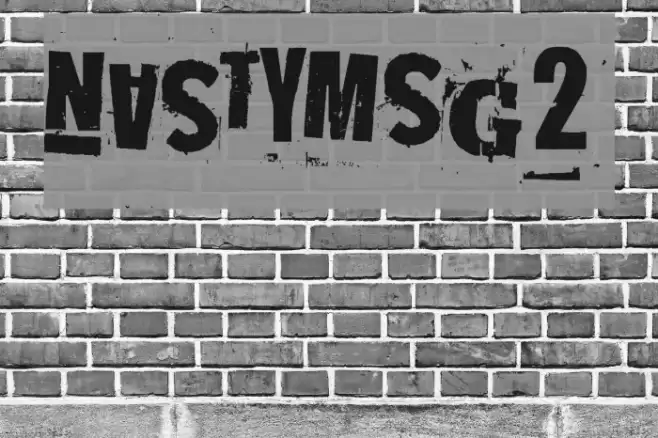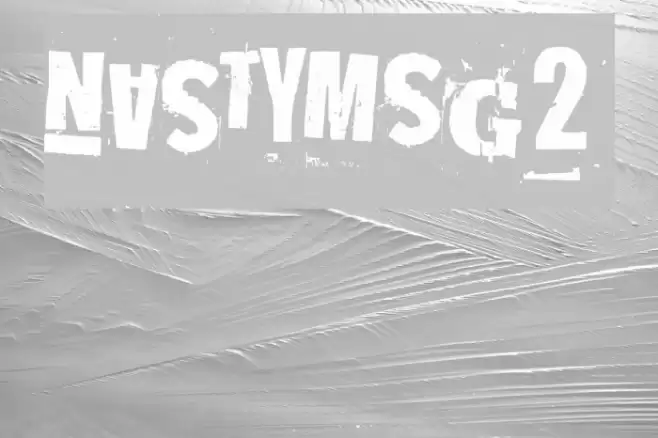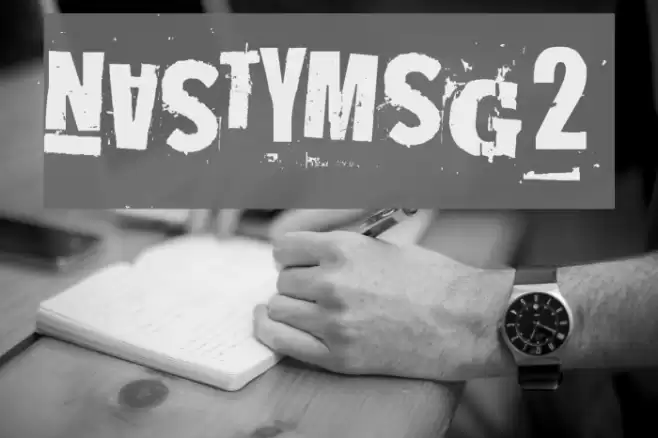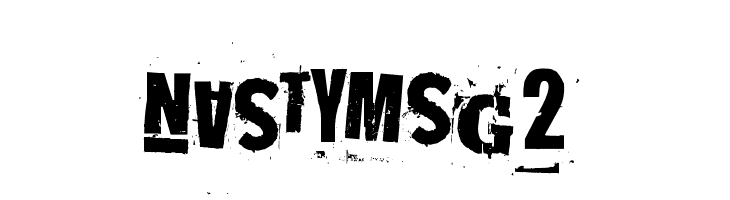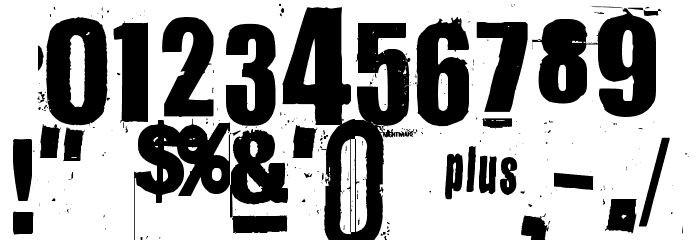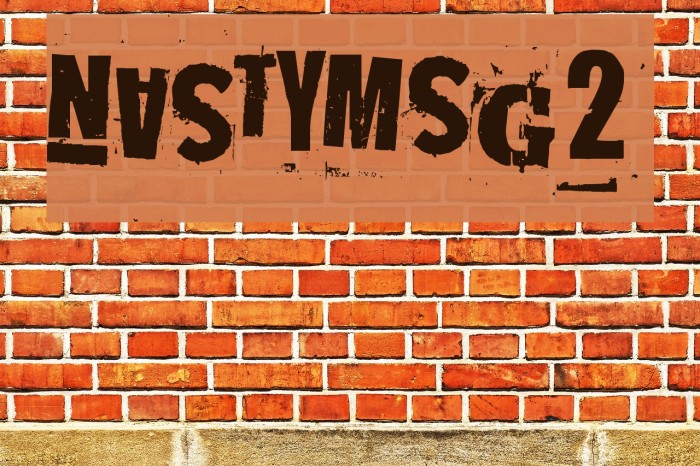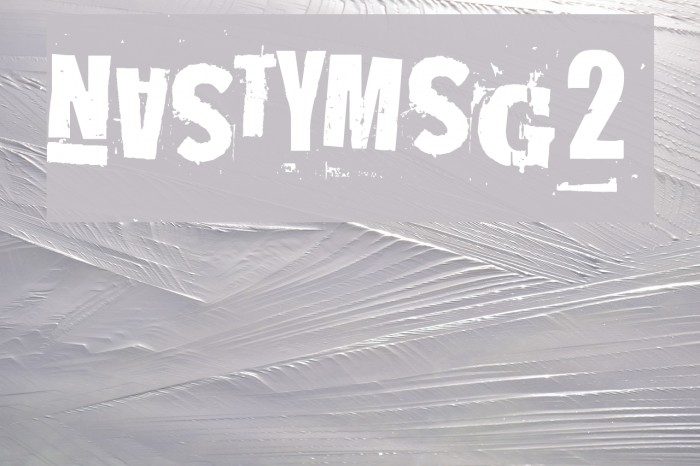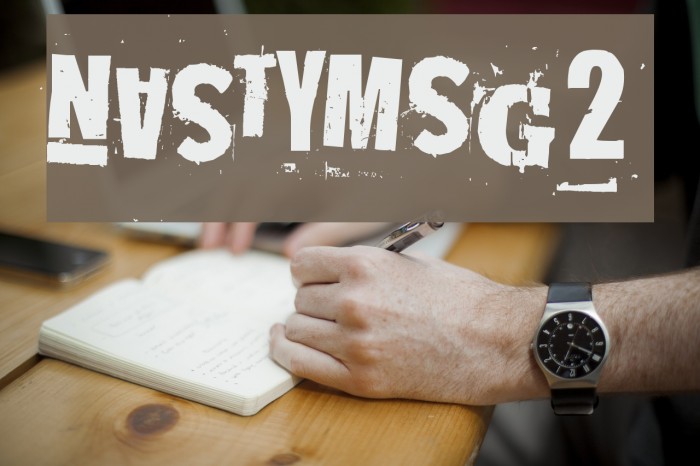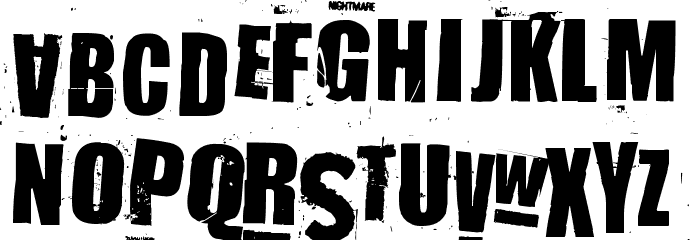
NastyMSG2 Font
NastyMSG2 Description
This font exudes a gritty, distressed aesthetic, reminiscent of a ransom note or a punk rock flyer. The letters are bold and irregular, with each character appearing as if it has been cut from a different source and pasted together. The texture is rough, with visible wear and tear that adds to its rebellious charm. The uppercase and lowercase letters maintain a consistent style, while the numbers and special characters follow suit with the same rugged, eclectic feel. This font is perfect for projects that require a bold statement or an edgy, unconventional look.
A bold, distressed font with a gritty, eclectic style from Uncategorized fonts.
- Proposed Projects: Ideal for album covers, posters, street art, and any design needing a rebellious, edgy vibe.
- Use Case: Headlines, Posters, Album Covers